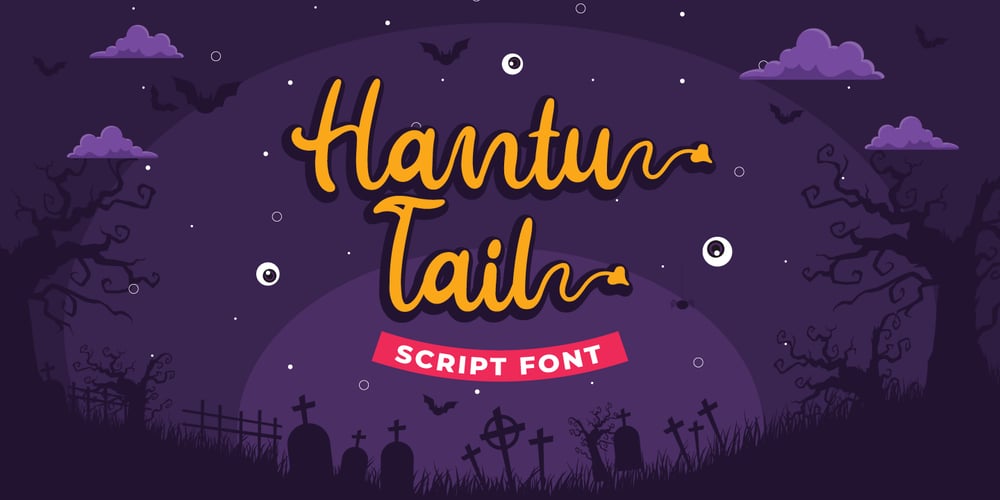
Hantu Tail Font Family was designed by Fadli Ramadhan Iskandar and published by Attype Studio. Hantu Tail contains 1 styles and family package options. Hantu Tail is a delicate and incredibly distinct Halloween Script Font. Fall in love with its incredibly versatile style and use it to create spectacular designs!Hantu Tail perfect for halloween promotion, branding, logo, invitation, stationery, social media post, product packaging, merchandise, blog design, game titles, cute style design, Book/Cover Title and more.What’s Included :- Hantu Tail Family Font- ligatures- Ending Swash- Multilingual, US Roman, Latin 1 Support —Hope you enjoy with our font!Attype Studio